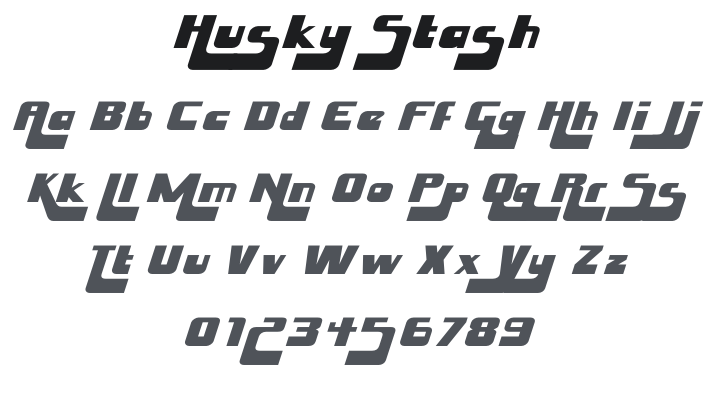
Husky Stash Font
About Husky Stash
Husky Stash is a funky retro display font with chunky shapes, oversized swashes, and a distinctly 1970s van-culture attitude. Its bottom-heavy letterforms and playful curves create a bold, carefree look that feels vintage and full of personality. Ideal for album covers, apparel graphics, posters, logos, packaging, and nostalgic branding projects that want a groovy, old-school aesthetic with strong visual impact.